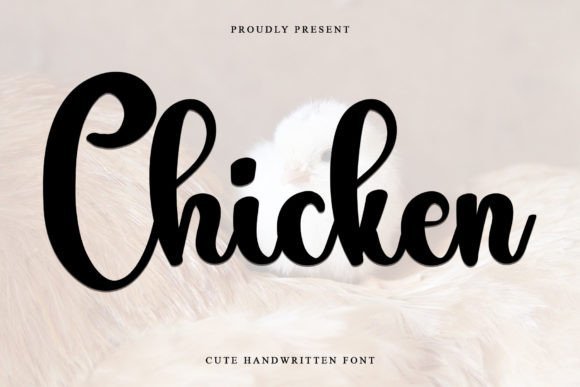
The Perfect Touch: Uncovering the Beauty of Chicken Font
You know that moment when a single font can elevate your entire design and transport you to a world of creativity? For designers, this is a feeling we’re all too familiar with. It’s the moment when the perfect font choice sparks inspiration and sets the tone for a project. And, for many of us, that perfect font is Chicken Font.
Chicken Font is a stunning, elegant handwritten font that adds a touch of sophistication to any project. Whether you’re designing a wedding invitation, a logo, or a marketing campaign, Chicken Font is the perfect choice. Its unique and timeless style makes it a valuable addition to any designer’s toolkit, allowing you to create truly spectacular designs that stand out from the crowd.
Chicken Font Key Features
• Unique Characteristics: The Chicken Font features a playful, hand-drawn style with intricate details, making it ideal for adding a touch of whimsy to designs.
Chicken Font Review
When I first saw the Chicken Font, I was immediately drawn in by its unique, playful vibe ✨. The font is undeniably eye-catching and could add a fun touch to various design projects. I appreciate how the font’s quirky character is balanced by clean lines and a simple design aesthetic.
One of the biggest strengths of Chicken Font is its versatility ✨. It can be used in a wide range of contexts, from logos and branding materials to advertisements and digital interfaces. The font is also highly legible, making it suitable for large blocks of text.
However, there are a few limitations to consider ⚠️. The font’s stylized design may not be suitable for all types of content. For example, it may not be the best choice for formal or professional materials. Additionally, the font’s uniqueness can sometimes feel overwhelming, making it difficult to use in certain contexts.
Overall, I think the Chicken Font is a solid choice for designers looking to add some personality to their work ✨. While it may not be the most conventional font choice, it has a lot of potential and can be a great way to add some visual interest to a design.
• Unique and playful design
• Highly legible
• Versatile and suitable for a wide range of contexts
Chicken Font is commonly used in:
• Food and beverage branding
• Children’s party invitations
• Cartoon-style graphics
Remember to use Chicken Font in moderation to avoid overwhelming your design.
Alternatives to Chicken Font for Designers
Great Vibes is a beautiful, elegant script font that can be used for headings, titles, and invitations. It has a more refined and sophisticated look compared to Chicken Font, making it suitable for high-end designs.
When to use: Wedding invitations, luxury brand logos, and upscale event promotions. It has a more polished and refined look compared to Chicken Font, which is more playful and casual.
Cream Soda is a whimsical, handwritten font that can be used for titles, headings, and body text. It has a more rustic and vintage look compared to Chicken Font, making it suitable for retro-themed designs.
When to use: Retro-themed posters, vintage advertisements, and nostalgic brand identities. It has a more laid-back and casual look compared to Chicken Font, which is more playful and energetic.